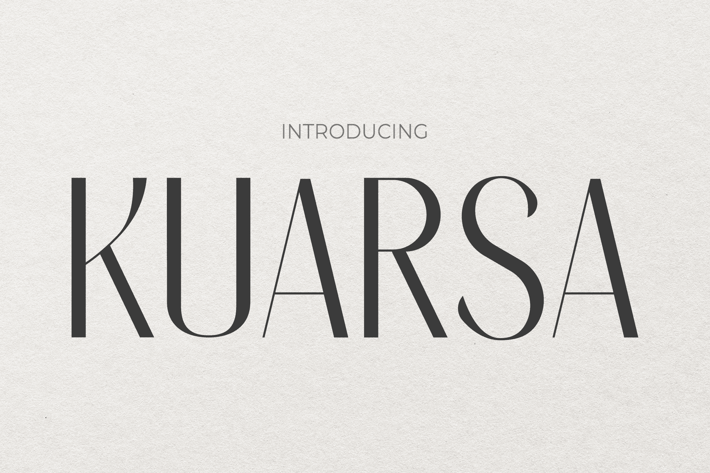
Kuarsa - Modern Font
Kuarsa
Kuarsa is a sleek high-contrast display font that blends soft sophistication with editorial clarity.
Featuring refined letterforms with clean edges, elongated stems, and balanced spacing, Kuarsa creates an effortlessly modern impression. Its elegant proportions and smooth vertical tension make it ideal for high-end branding projects, lookbooks, and social media content. The font feels airy and elevated, with just enough character to remain stylish without overpowering the layout.
Vibe: Minimalist, elegant, airy
Ideal for: Fashion brands, skincare packaging, modern portfolios, lifestyle blogs
Structure: Tall x-height, thin stems, high contrast, subtle curves
Tone: Stylish, editorial, contemporary
Whether you're launching a capsule collection or designing a clean beauty label, Kuarsa speaks the language of elegance and minimalism. It's a perfect match for editorial projects where legibility meets luxury, and its high contrast ensures that headers and logos remain striking, even in minimalist environments. Use it to frame your narrative in a way that feels soft yet confidently expressive.
Key Features
Why Designers Love Kuarsa :
- Modern Elegance – Blends delicate curves and high contrast for a refined, upscale tone
- Editorial Focused – Designed for headlines, quotes, pull-texts, and brand storytelling
- Versatile Utility – Perfect for lookbooks, product packaging, logos, and luxury websites
- Clean Flow – Spacious layout with crisp structure, enhancing aesthetic readability
- Professional Finish – Offers a clean, calm presence while maintaining bold visibility